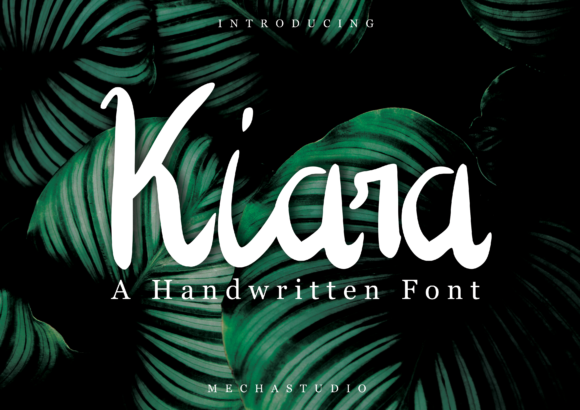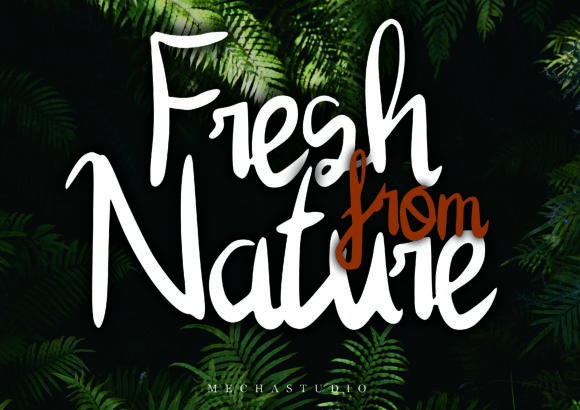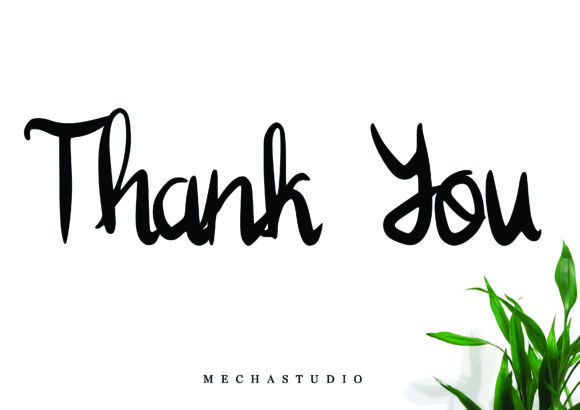
About Kiara Font
Kiara is a stylish and distinct script font that exudes a classy, elegant, and modern aesthetic. Its sophisticated look makes it a perfect choice for a variety of design applications, including logos, branding, invitations, stationery, wedding designs, social media posts, and more.
The font’s stylish script adds a touch of uniqueness to your designs, making them stand out with a blend of modernity and elegance. Whether you’re crafting a logo for a high-end brand, designing wedding invitations, or creating eye-catching social media posts, Kiara’s versatile and sophisticated appearance ensures a visually appealing outcome.
Kiara’s distinct and classy design allows it to seamlessly adapt to different contexts, maintaining a modern and elegant look across various projects. Its versatility makes it suitable for a broad range of applications, giving you the flexibility to convey a sense of sophistication and style.
In summary, Kiara is more than just a font; it’s a stylish and versatile tool that adds a touch of class and modernity to your designs. Whether you’re working on branding or social media content, Kiara stands out as an elegant choice that elevates the overall visual appeal of your creative projects. Embrace the sophistication of Kiara and let it become a key element in expressing the modern and classy essence of your designs.